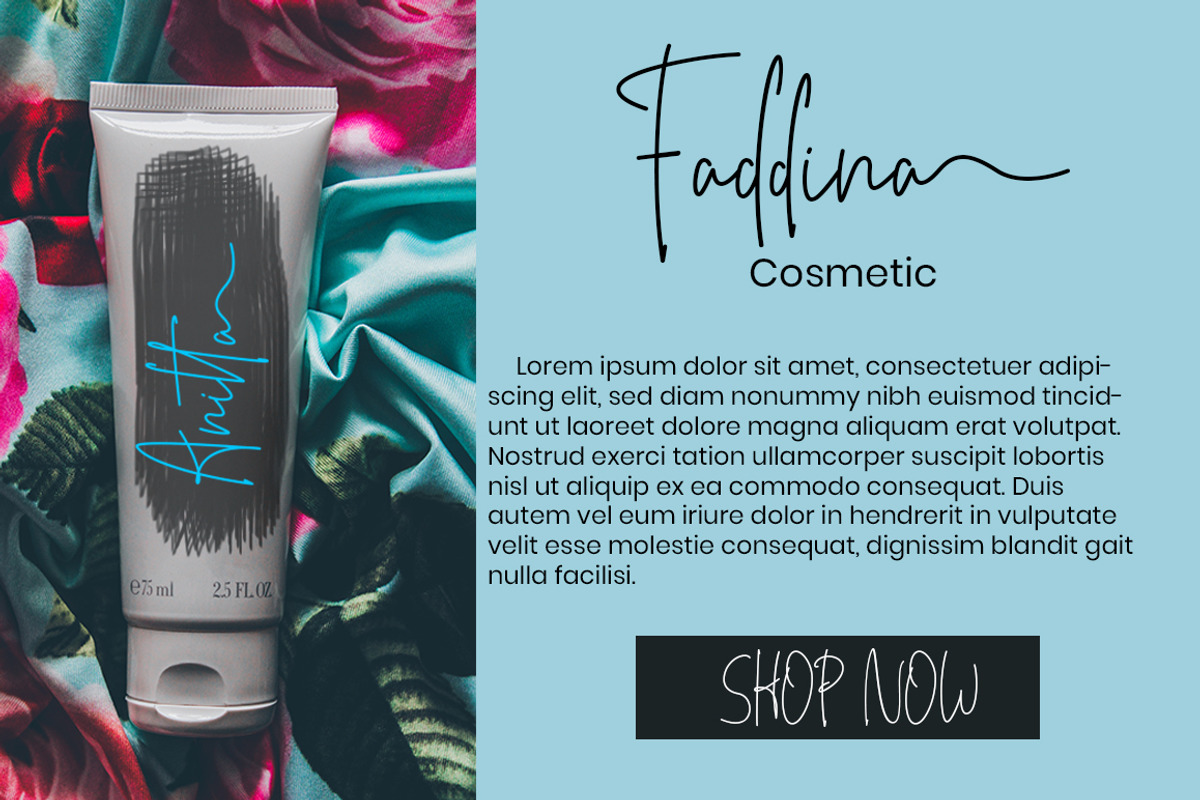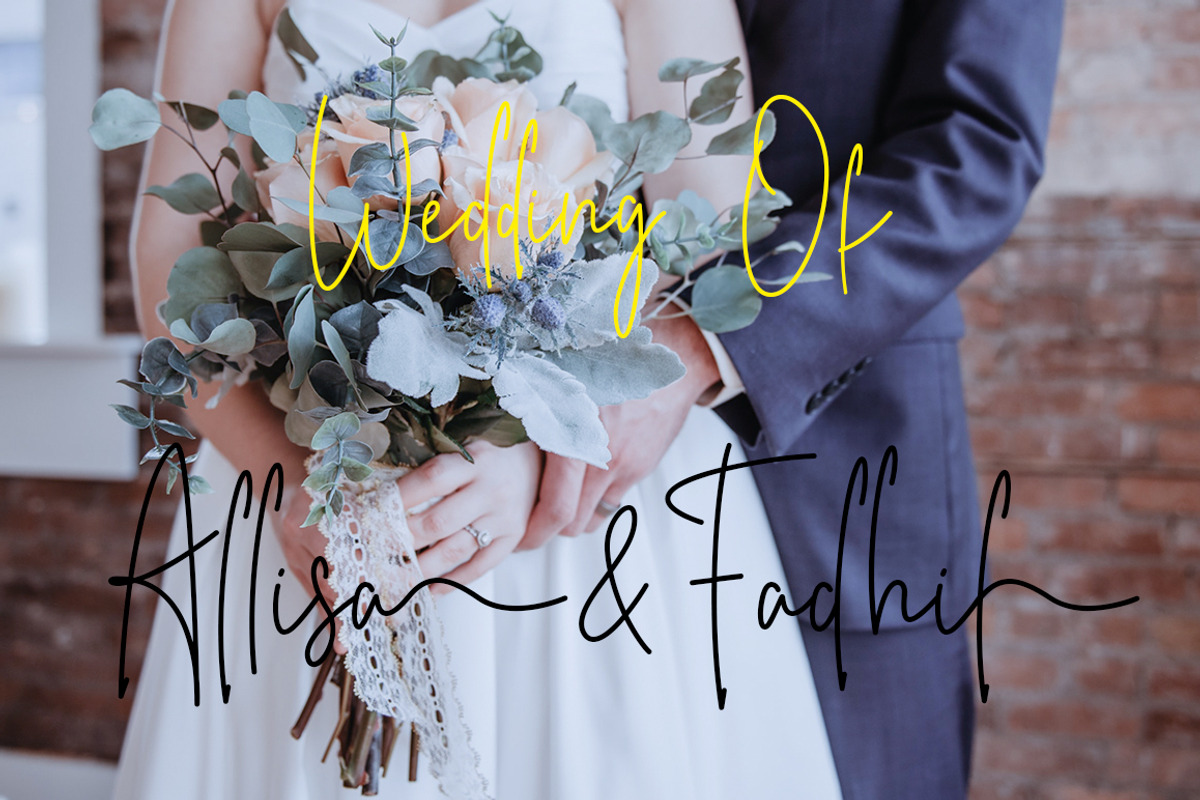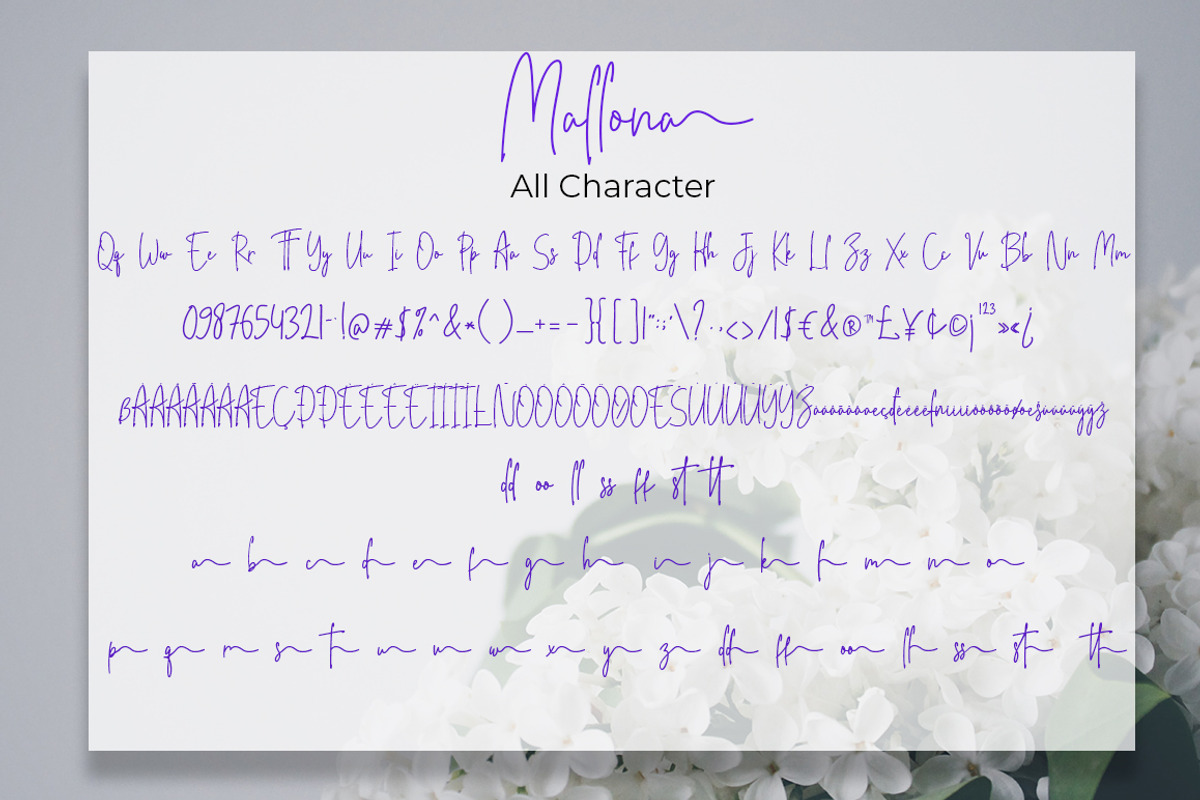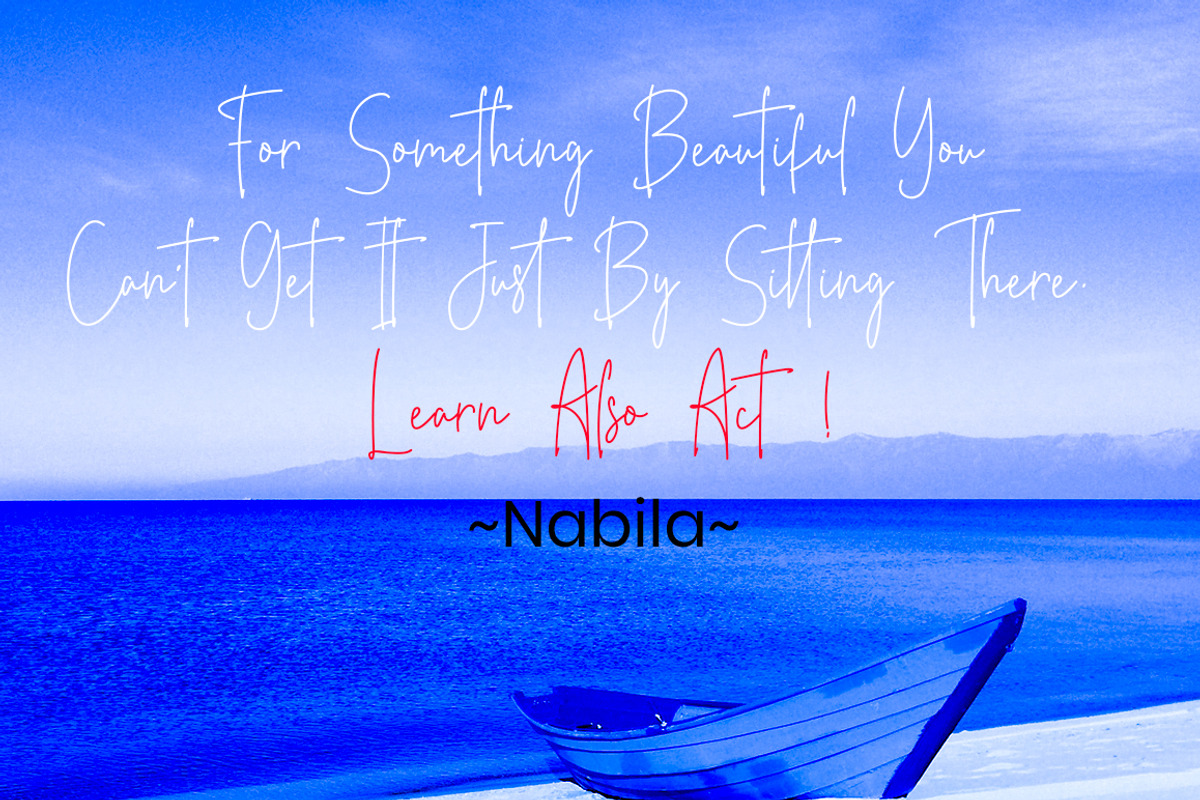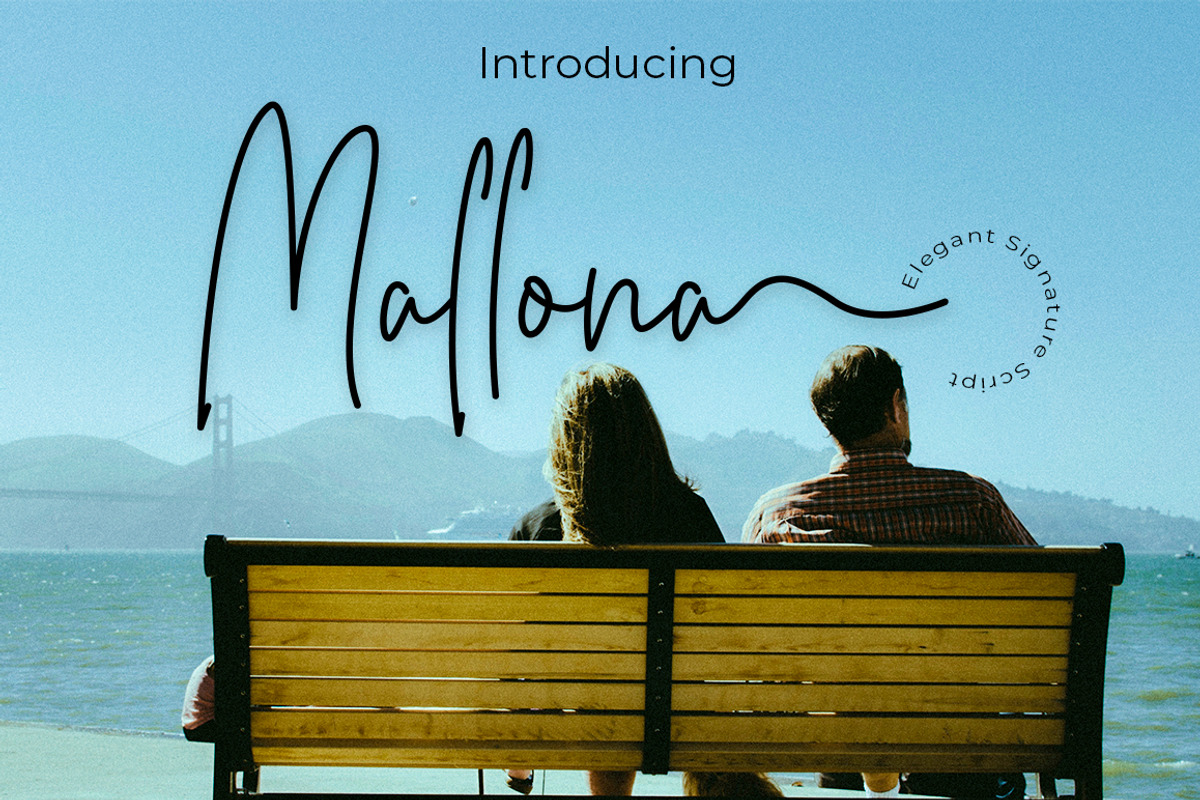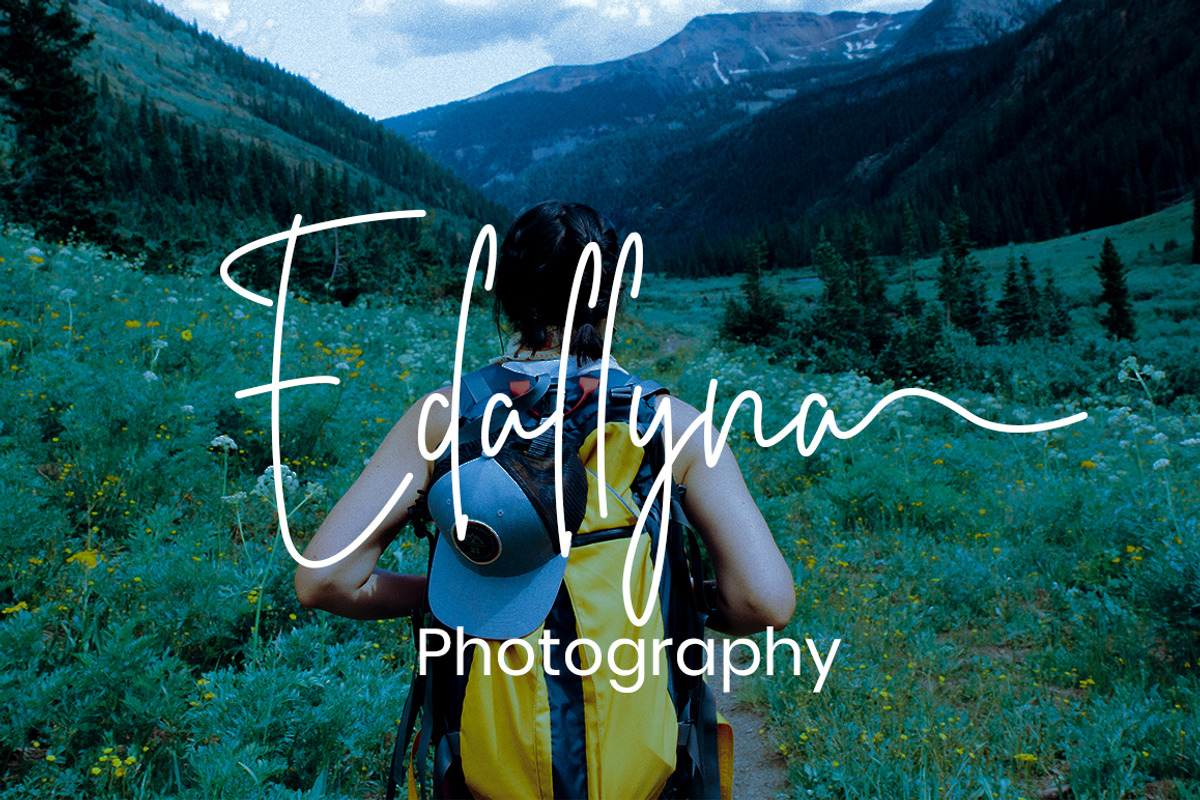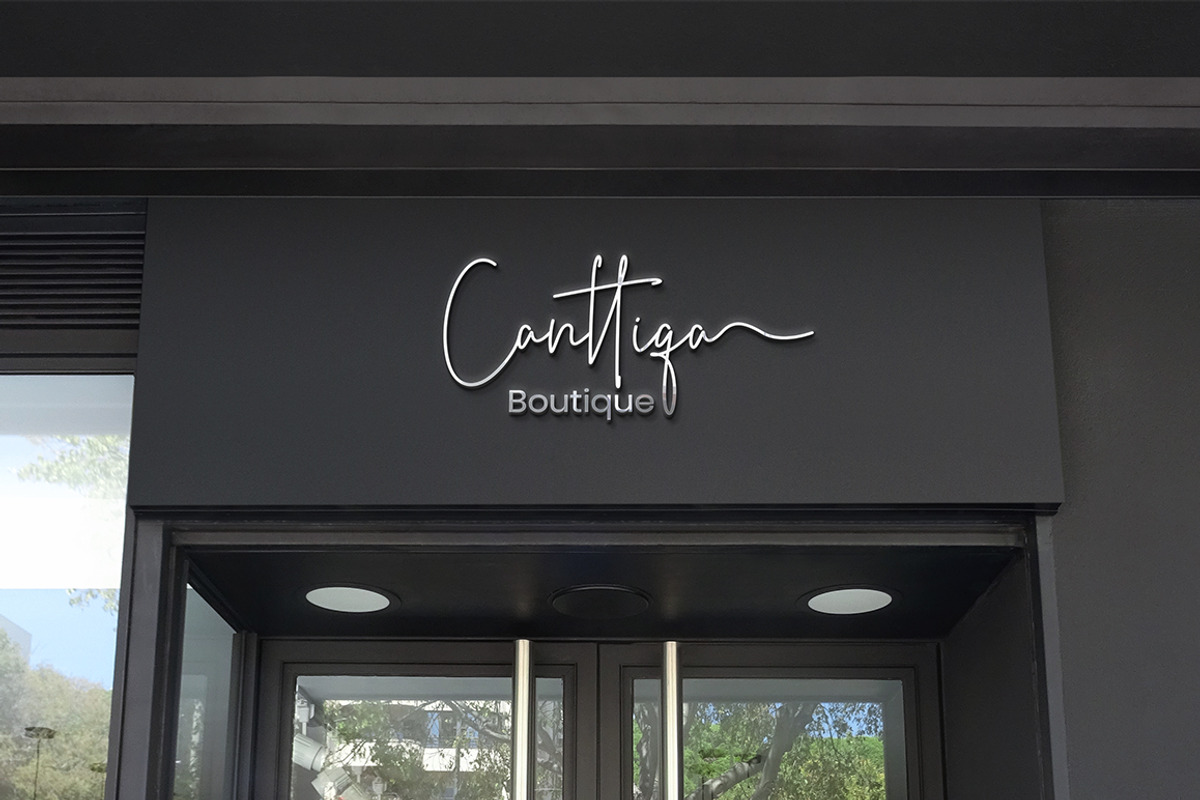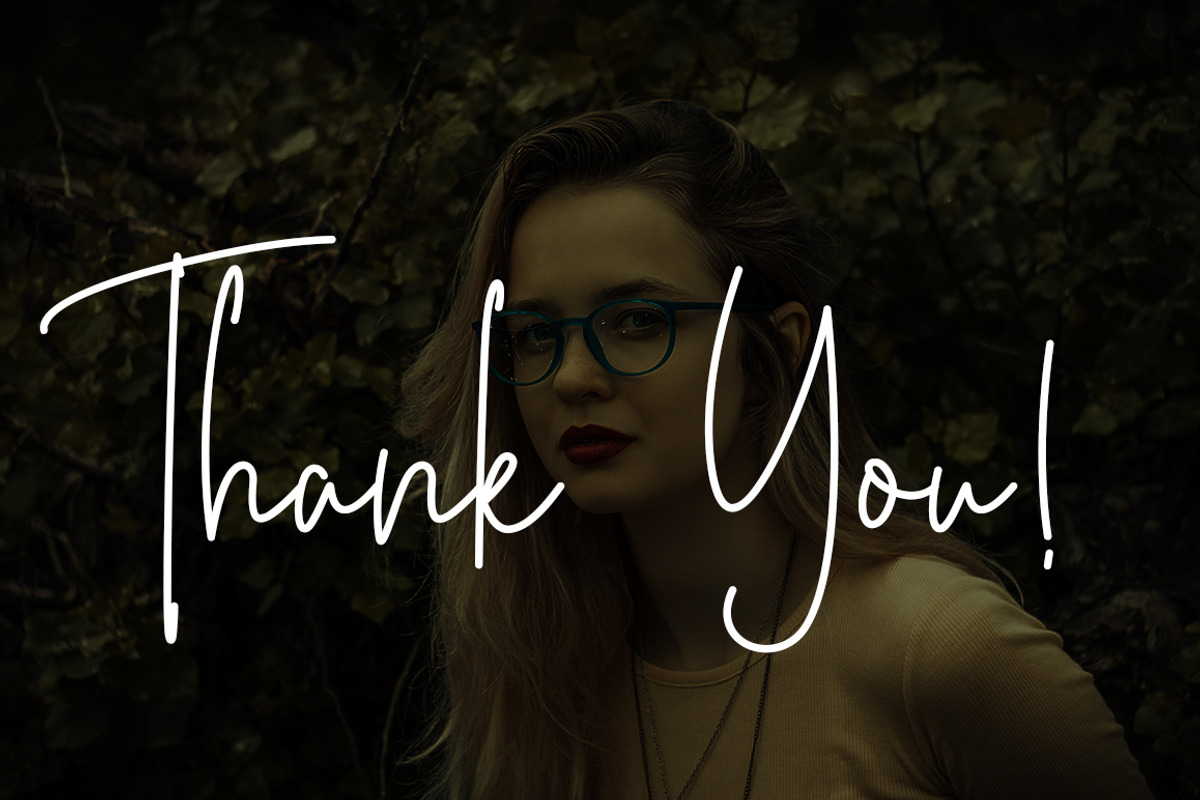
Mallona Script Signature Monoline
Mallona is a stylish and delicate font. It has a clean, thin and smooth vibe and it will be a hit for any design that you want to add it to. This font is PUA encoded which means you can access all of the glyphs and swashes with ease!